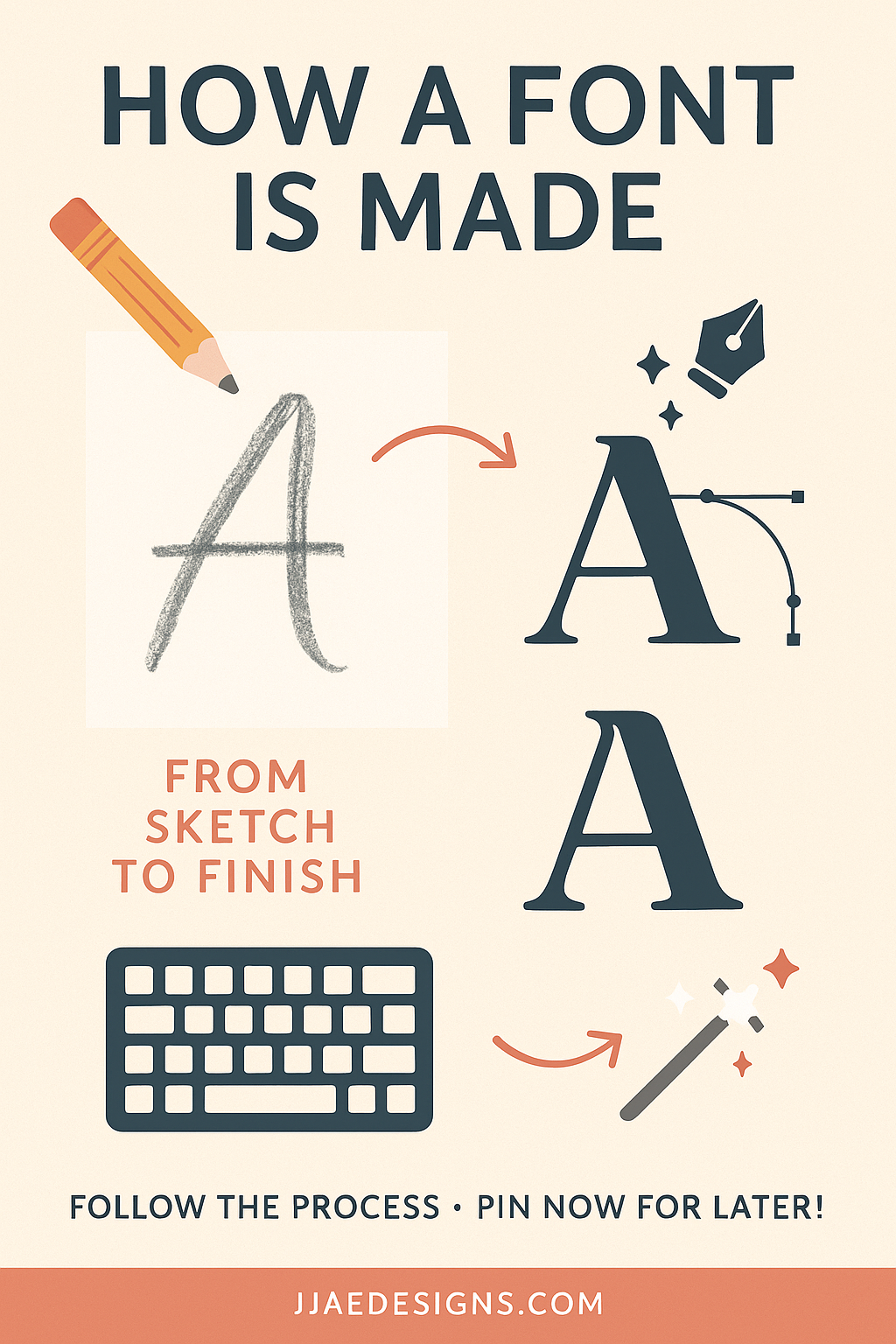
Behind the Scenes: How a Font Is Born
Fonts don’t just magically appear on your laptop, ready to make your Cricut crafts and wedding invites look amazing. Behind every cute swirl, bold serif, or quirky bounce is a process—and spoiler alert: it’s part art, part science, and part obsession.
So what does it actually take to bring a font to life? Let’s break it down step-by-step. (Spoiler: it’s not just clicking “Save As Font.”)
Step 1: Sketching the Vision
It all starts with a doodle, a scribble, or an “I wonder if…”
Some font ideas begin on paper, others in Procreate or Illustrator—but every font starts with a style in mind:
- Whimsical and fun?
- Elegant and romantic?
- Bold and blocky with attitude?
Each letter is hand-drawn (or Apple Pencil’d), keeping in mind the overall vibe. Yes, we draw A to Z—one by one!
Step 2: Vector Magic
Once the letters are sketched, they’re cleaned up into smooth, scalable vector shapes in Illustrator.
That means:
- Smoothing out curves
- Making sure lines are consistent
- Fixing that one wonky “g” that just won’t behave
It’s like giving your letters a makeover—precision brows, smooth edges, and a whole lotta polish.
Step 3: Building the Font File
Now comes the nerdy part. We import the letters into font software (like FontForge or Glyphs) and assign each one to its proper spot on your keyboard.
This is also where we:
- Add kerning (aka spacing between letters)
- Program in alternates, ligatures, and special glyphs
- Test every combination (so your “la” doesn’t look like a weird hug)
Step 4: Export, Test, Tweak, Repeat
We test the font in Canva, Cricut Design Space, and design software to make sure it cuts well, looks clean, and plays nice with different platforms.
Then we tweak. And test. And tweak again.
(And maybe yell at the ampersand a few times. Looking at you, &.)
Step 5: Bundle, List & Launch!
Once the font is 100% ready, it gets:
- A cover image
- Preview sheets
- A usage guide (especially if it has extras or alternates!)
Then we pop it into the shop and send it off into the world to inspire creativity, pretty up planners, and bring someone’s vision to life.
Final Thoughts from a Font-Maker
Creating fonts isn’t just a technical process—it’s storytelling through letters.
Every curve, bounce, and swirl is intentional. And when someone uses one of our fonts on a wedding invite, a product label, or a Cricut project… it’s ✨ magic ✨.